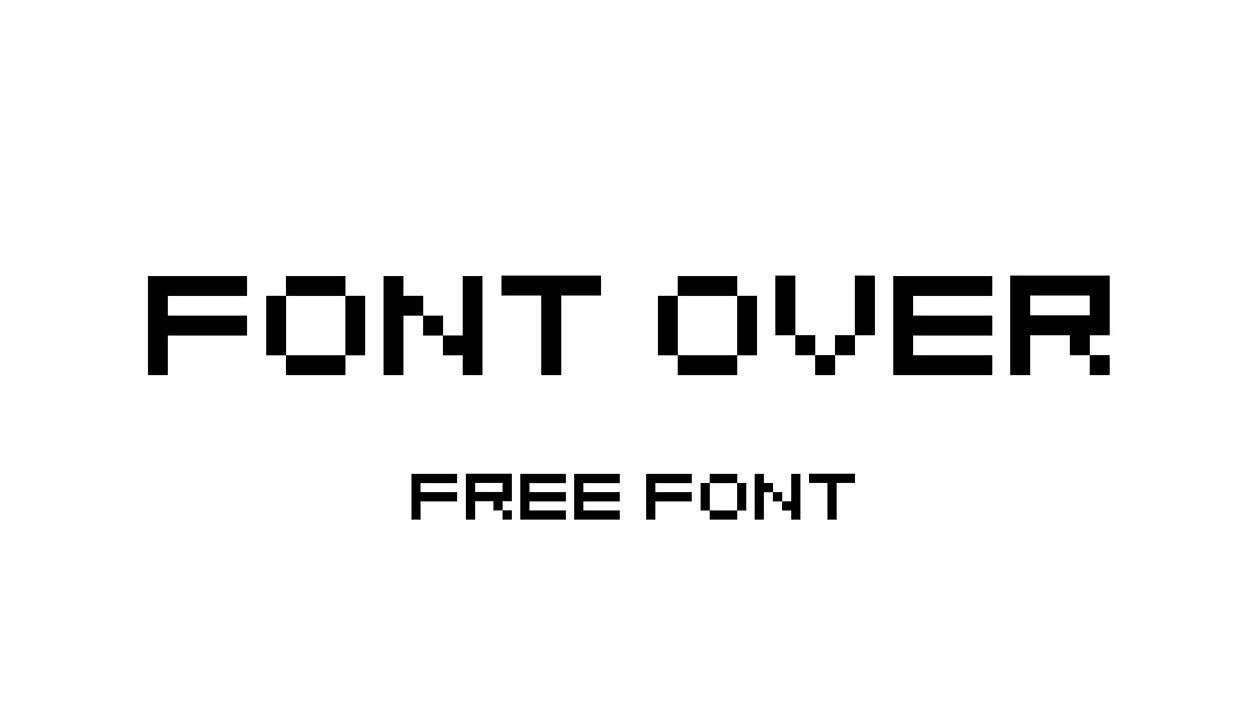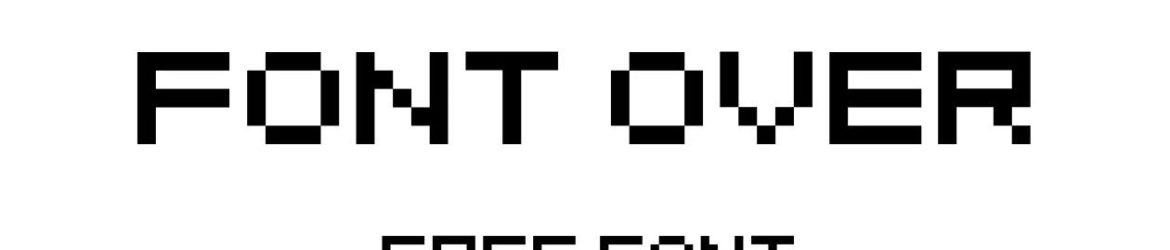
Download Font Over, a retro pixel display typeface with Latin and Cyrillic support. Font Over perfectly fits for posters, prints, old school graphics and games and other creative projects.
Designer: Ilya Zakharov